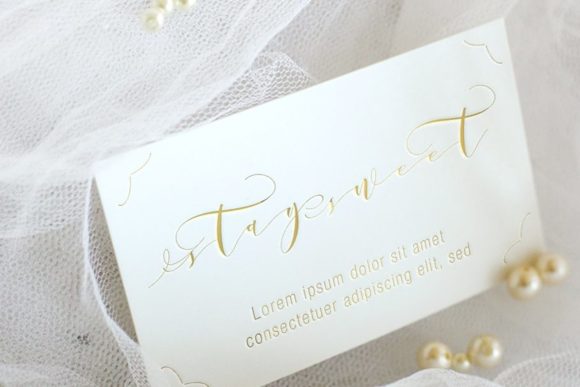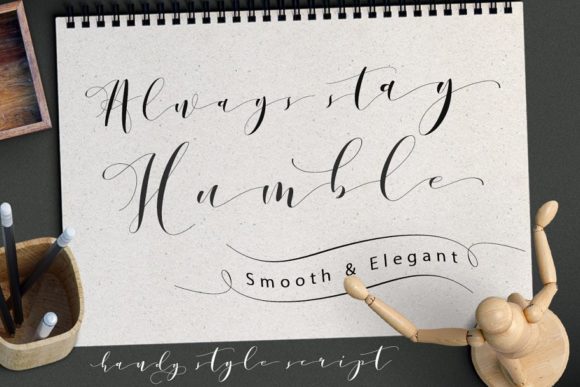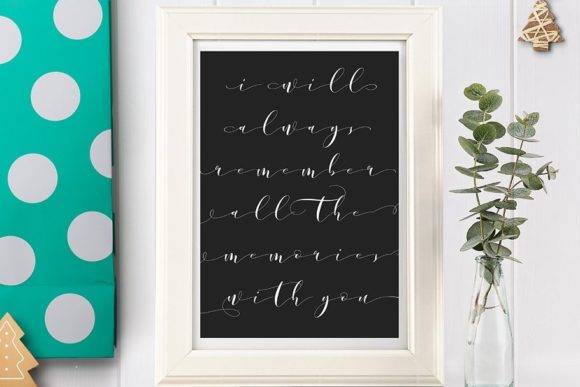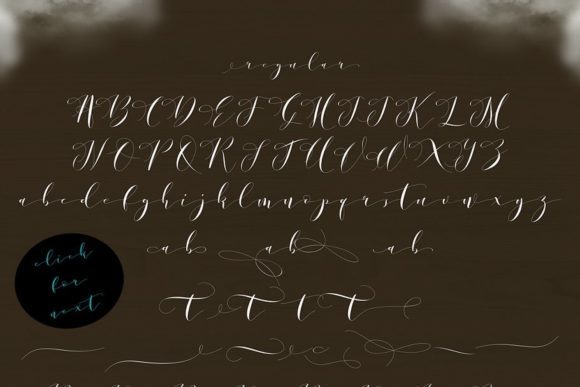
Introducing Donita Script Font: Elevate Your Designs with Charming Playfulness
In the world of typography, a font can make all the difference in bringing a design to life. For those seeking a script font that exudes charm and playfulness, look no further than Donita Script. This lovely font is designed to add a touch of whimsy to your creative projects, making them stand out with its unique and captivating style.
The Unique Charm of Donita Script
Donita Script is a beautifully crafted script font that features charming, playful characters that seem to dance along the baseline. Each letter is meticulously designed to convey a sense of movement and fluidity, making it perfect for designs that require a personal touch. Whether you’re working on a branding project, crafting a handmade product, or creating digital content, Donita Script is sure to add a dash of personality to your work.
Key Features of Donita Script Font
- Charming and Playful Characters: Donita Script boasts characters that are not only aesthetically pleasing but also full of personality, ensuring your designs are always unique.
- PUA Encoded: Being PUA (Private Use Area) encoded, Donita Script allows for easy access to all the amazing glyphs and ligatures, making it incredibly versatile for various design applications.
- Ease of Use: With Donita Script, you can effortlessly incorporate intricate details into your designs. The font’s encoding ensures that you can access a wide range of characters without any hassle.
Applications of Donita Script Font
The versatility of Donita Script makes it suitable for a myriad of design projects. Here are some of the areas where this font truly shines:
- Branding and Logos: Create memorable brand identities with Donita Script’s distinctive charm. It’s perfect for businesses looking to convey a friendly and approachable image.
- Stationery and Invitations: Add a personal touch to your stationery, invitations, and greeting cards. Donita Script’s playful demeanor makes any paper product feel special.
- Digital Content: From blog headers to social media graphics, Donita Script can elevate your digital content, making it more engaging and visually appealing.
- Crafting and DIY Projects: For crafters and DIY enthusiasts, Donita Script can be a valuable asset. Use it to create beautiful titles for handmade products, crafting tutorials, or any DIY project that requires a personal and creative touch.
Tips for Using Donita Script Effectively
To make the most out of Donita Script, consider the following tips:
- Pair with Complementary Fonts: Donita Script pairs well with clean, sans-serif fonts. The contrast can help highlight the unique features of the script font.
- Experiment with Sizes and Colors: Don’t be afraid to play around with different sizes and colors. The right combination can make your design pop.
- Utilize Ligatures and Glyphs: Take full advantage of Donita Script’s PUA encoding. Ligatures and glyphs can add depth and interest to your designs.
Donita Script Font is a delightful addition to any designer’s toolkit. Its charming, playful characters and PUA encoding make it a versatile and valuable asset for a wide range of creative projects. Whether you’re a professional designer or a crafting enthusiast, Donita Script has the potential to elevate your designs, making them more engaging, unique, and memorable. So, why wait? Add Donita Script to your collection today and watch your designs come to life with a touch of whimsy and charm!